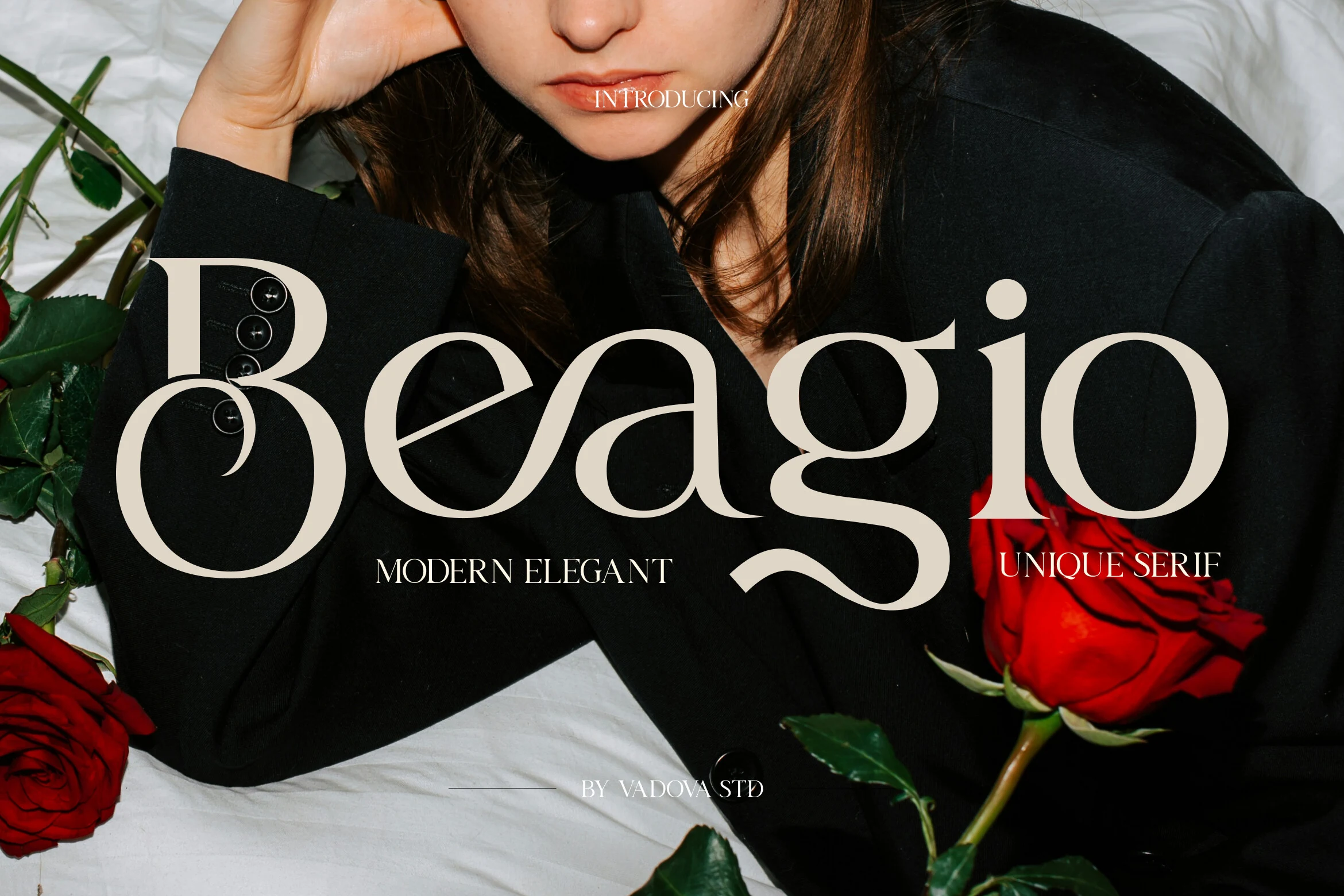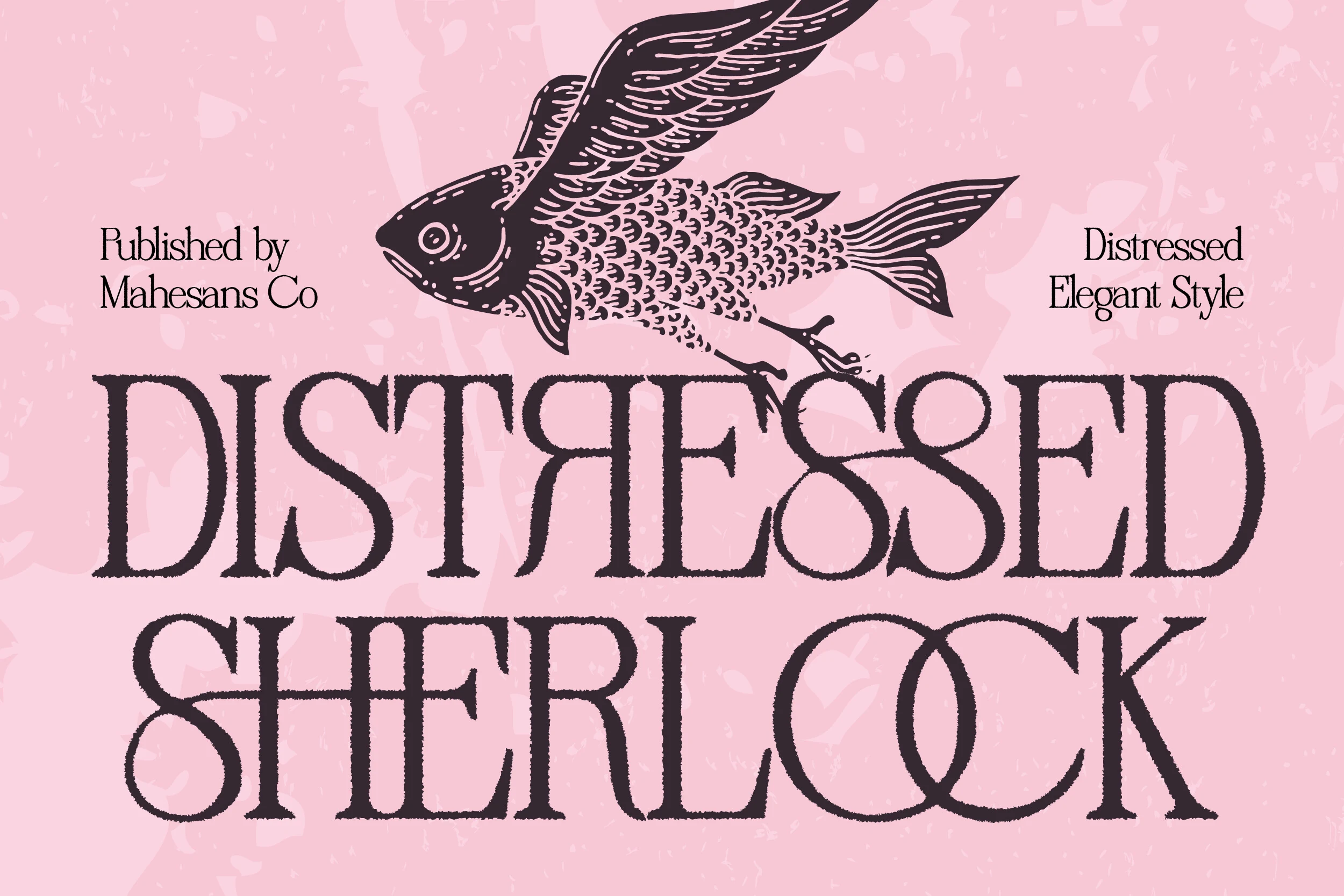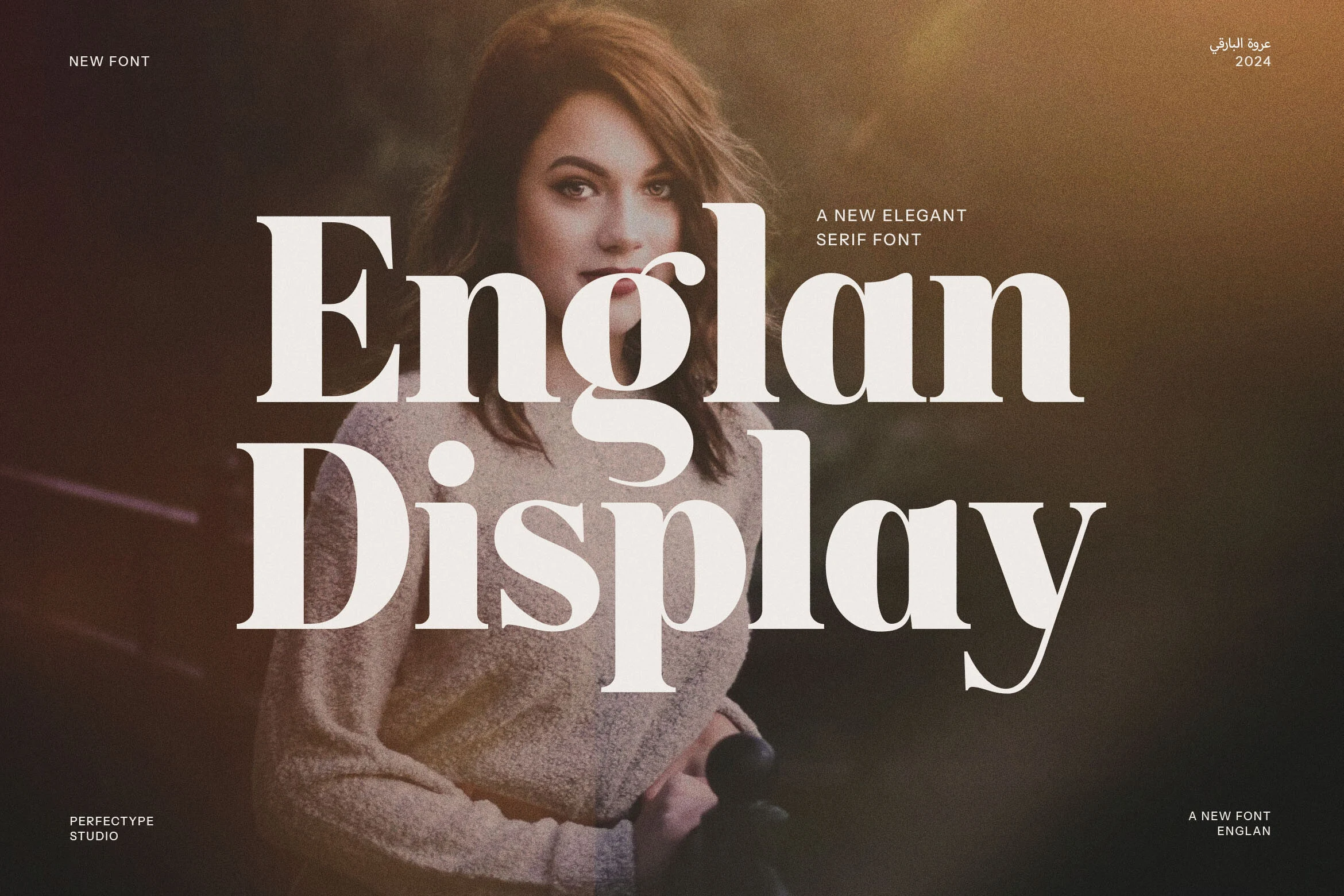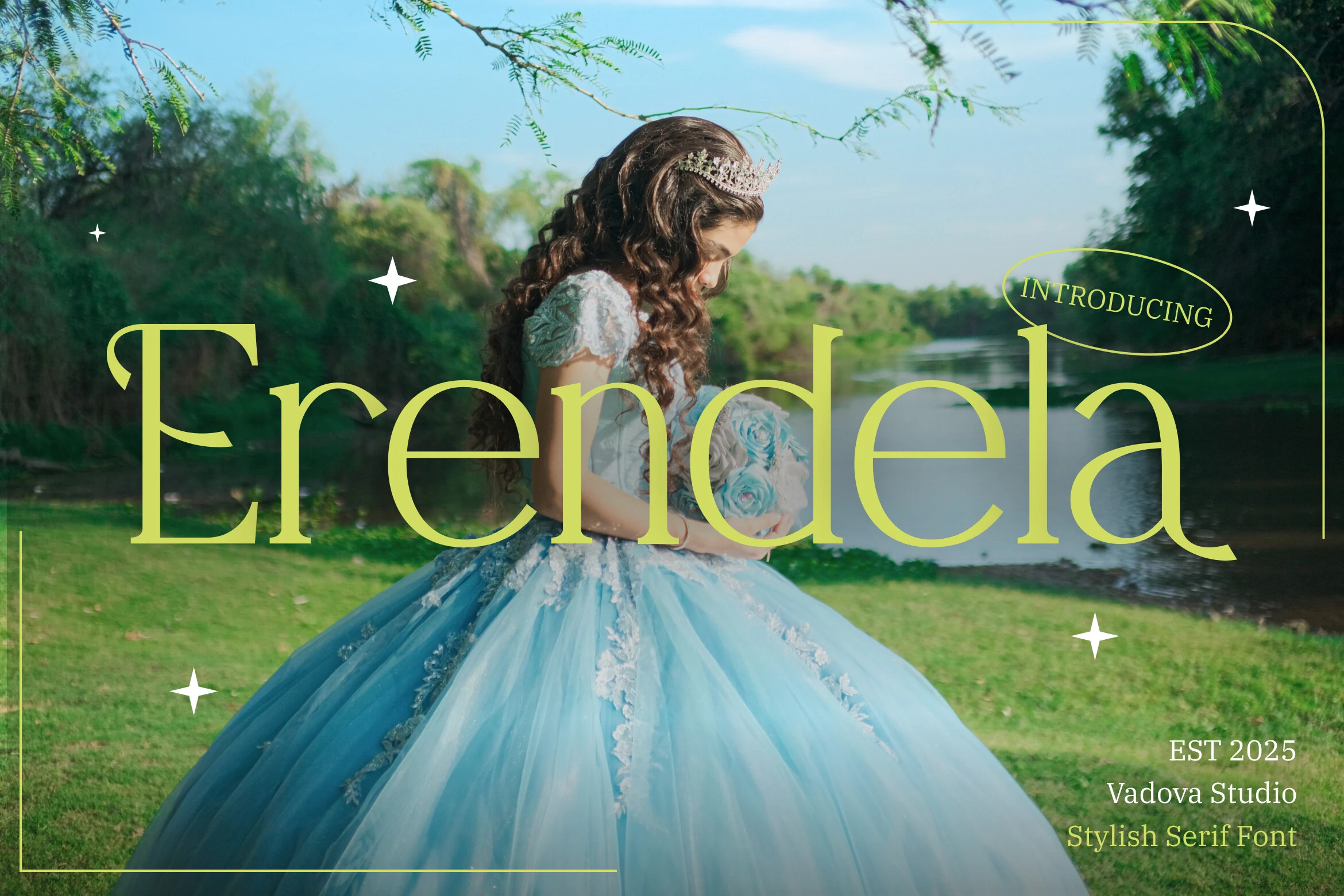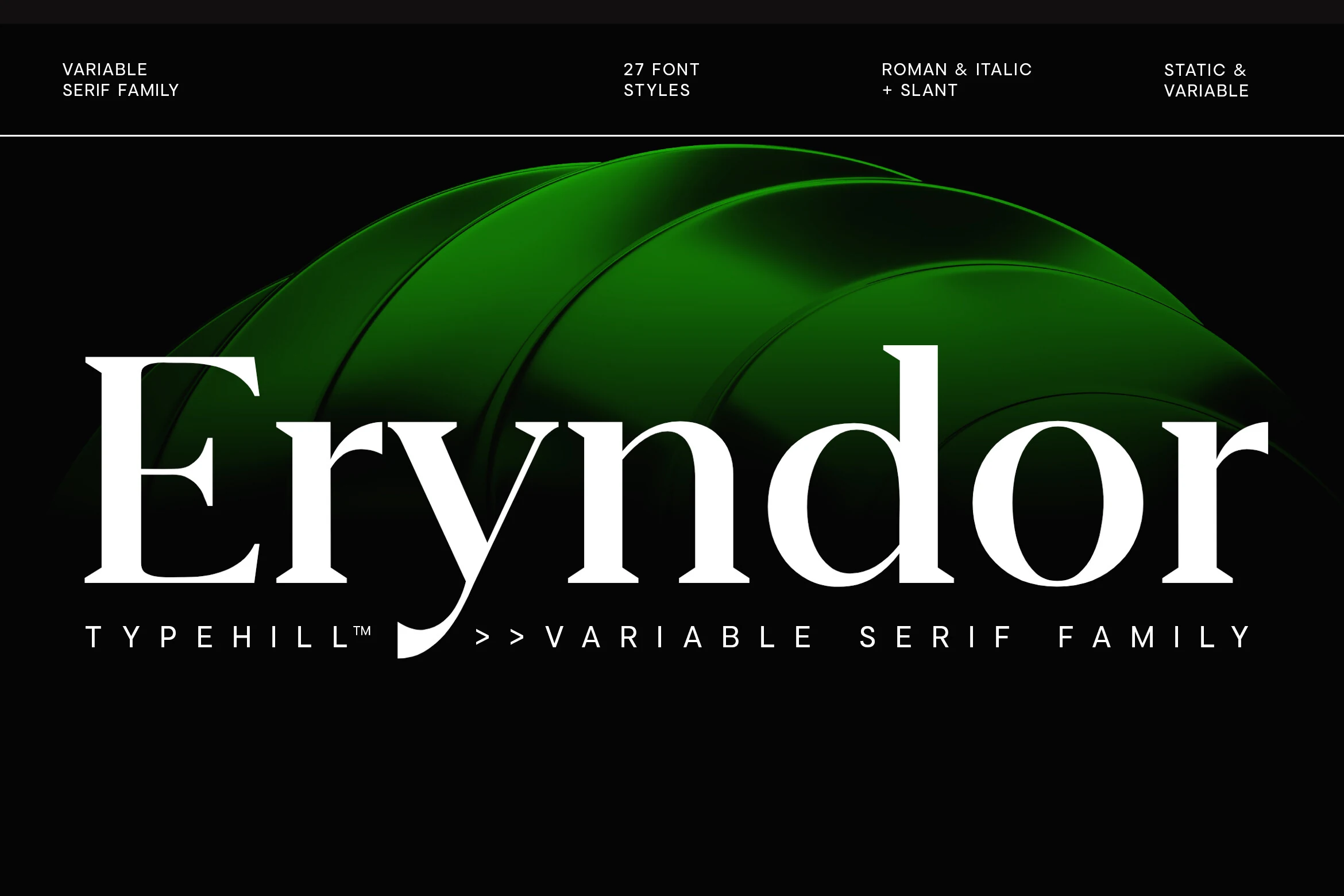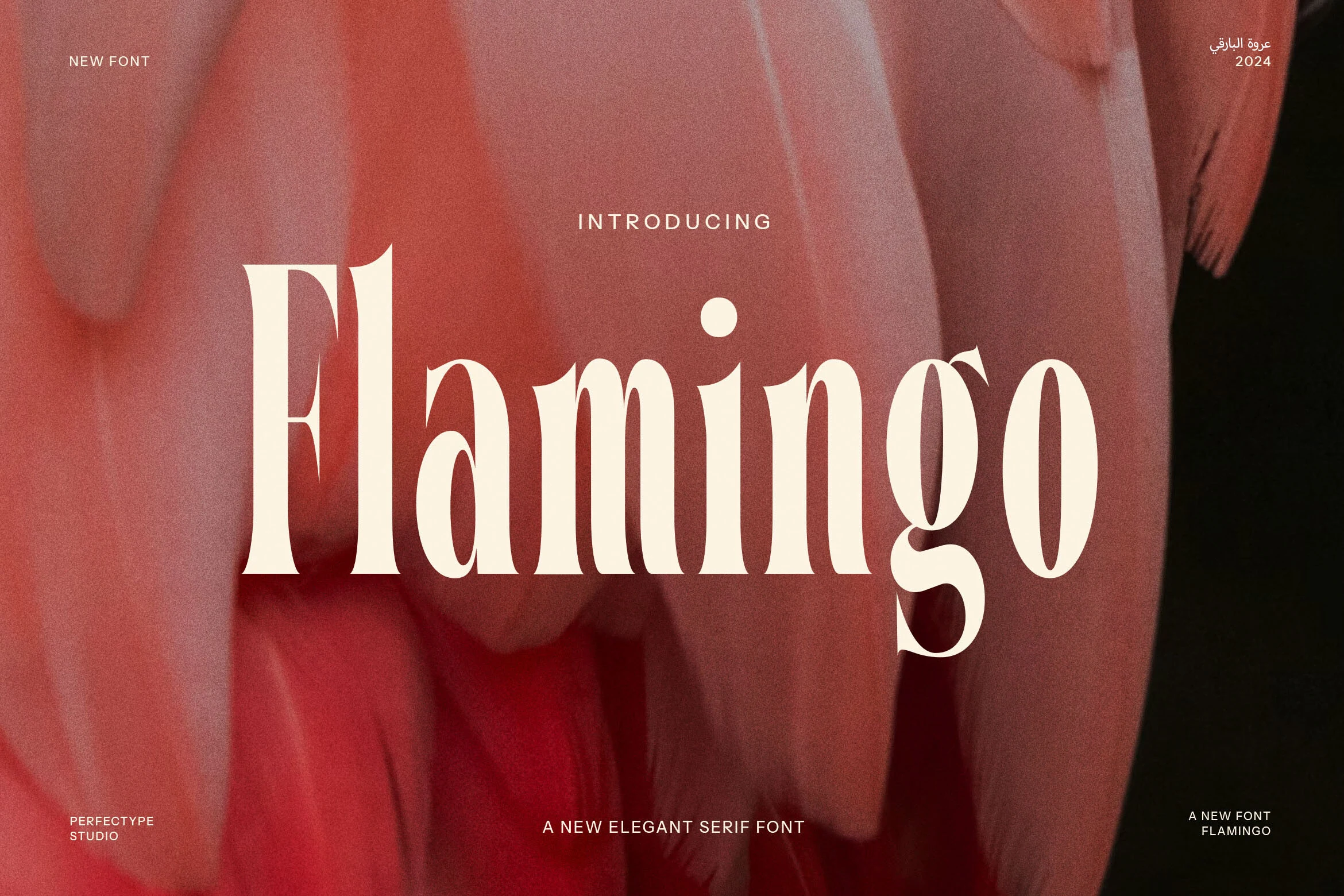
61 Stunning Aesthetic Fonts for Luxury Branding in 2026
Typography has become one of the most important elements in modern visual identity, and Aesthetic Fonts continue to dominate branding, editorial layouts, social media graphics, and luxury-inspired design. The right font can instantly change the mood of a project, making it feel more elegant, artistic, minimal, or premium without relying on heavy visuals.
In this collection, you’ll discover some of the best Aesthetic Fonts for logos, beauty branding, fashion campaigns, editorial headlines, invitations, packaging, and creative projects. From refined high-contrast serif fonts to decorative display typefaces with dramatic swashes and modern curves, each font offers a unique personality that helps designs stand out while maintaining a polished and stylish appearance.
Whether you are building a luxury brand, designing social media content, or creating modern editorial compositions, these Aesthetic Fonts provide the versatility and visual impact needed to elevate your typography and create a memorable aesthetic.
Flamingo Font
Flamingo Font has a tall modern serif build with heavy vertical stems, fine inner cuts, and curved bracketed serifs that give each word a polished vintage edge. The lowercase g and soft oval counters add personality without disturbing the rhythm, making it a strong fit for Aesthetic Fonts used in refined identity work.
Use it where the type carries the hierarchy: logo marks, editorial titles, beauty branding, or hero headers. Its contrast benefits from generous tracking in small uppercase text and tighter spacing in large wordmarks, so the thin details stay visible while the main shapes remain crisp.
Game & Reality Font
Game & Reality Font has a theatrical serif look with tall contrast, crisp wedge serifs, and sweeping fantasy curves that make the wordmark feel dramatic rather than delicate. The ampersand and terminal details bring real character, which gives Aesthetic Fonts a more cinematic, gallery-like direction.
This is a display face that works best when you let the shapes stay large and spacious. Use it for short titles, covers, or identity work where the sharp strokes can lead the hierarchy, and pair it with restrained supporting text so the ornate rhythm stays elegant instead of overcrowded.
Gomied Aesthetic Font
Gomied Aesthetic Font leans into a high-contrast serif style with elongated strokes, narrow proportions, and sweeping entry flourishes that give the capitals a poised, romantic feel. The sharp hairlines and soft curves create a polished silhouette, so it stands out easily within Aesthetic Fonts that aim for a more feminine, editorial mood.
It works best in display settings where those long terminals and airy counters have space to show. Use it for beauty branding, invitations, or fashion-led headlines, and keep supporting text simpler and more compact so the decorative swashes stay refined instead of visually crowded.
Chatos Original Font
Chatos Original Font pairs a tall, high-contrast serif with a loose handwritten script, creating a duo font that feels romantic without losing structure. The serif brings long verticals and elegant curves, while the script cuts across with a lighter, expressive rhythm, giving Aesthetic Fonts a more layered and artistic direction.
This combination works especially well when you use the serif for the main title and let the script add contrast as a secondary accent. That split helps invitations, boutique packaging, and branding feel styled rather than busy, especially when you keep the surrounding layout clean and the text short.
Moguela Font
Moguela Font has the kind of high-contrast serif structure that feels instantly editorial: slim hairlines, strong vertical stems, and long tapered terminals that give the wordmark a sleek, fashion-led silhouette. In Aesthetic Fonts, it stands out for its poised proportions and the subtle tension between delicate curves and crisp edges, which keeps it elegant rather than soft.
Use it where typography needs to carry status on its own—mastheads, boutique packaging, luxury labels, or refined brand marks. Its ligatures help headlines feel more composed, and the contrast looks best when you keep the layout spacious and let larger sizes show the thin details clearly.
Distressed Sherlock Font
Whether you prefer modern editorial typography, romantic serif styles, or bold artistic lettering, the fonts featured in this collection provide strong inspiration for creating stylish and memorable designs that feel both contemporary and timeless.